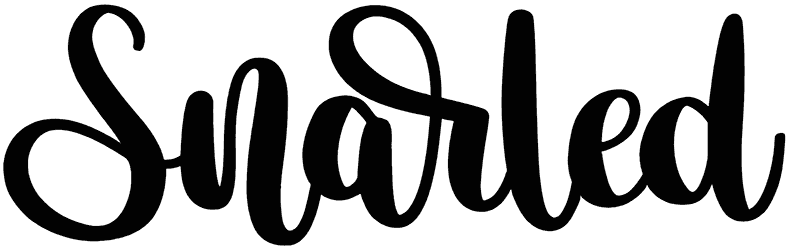
Snarled Font
As a popular style, using a handwritten font like this modern item can make a stunning visual for your designs and capture a lot of observers. The characters of the Snarled font are natural and soft, and they can be matched with different topics. Test this invitation font for your new layouts, namely a gift shop advertisement reel, and impress your followers.